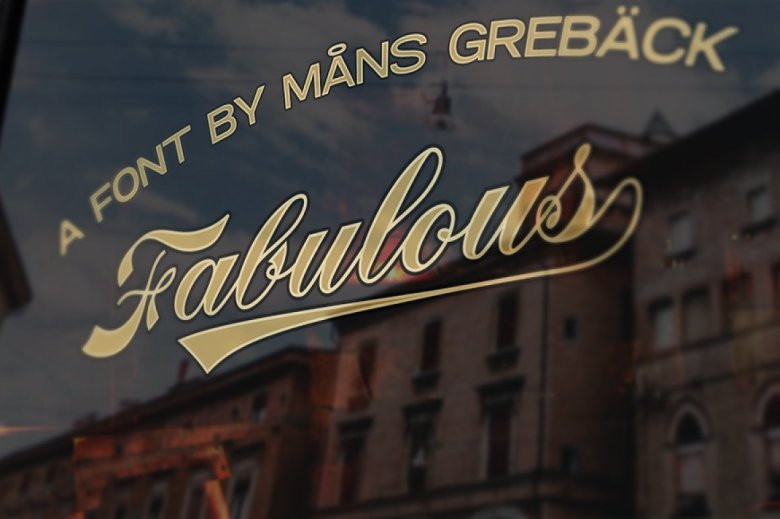
Fabulous Font
Fabulous is a classic logotype script. Bold but delicate, this script has both class and genuinity. The typeface also includes a white, outlined version called Fabulous Outline.